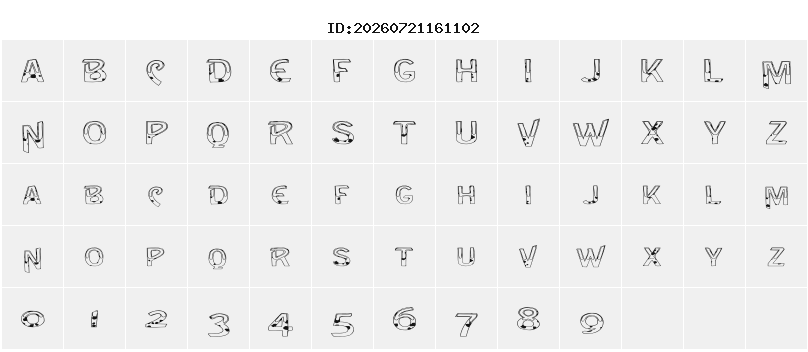
• Font Name: FZ UNIQUE 4 SPOTTED EX
• Full Font Name: FZ UNIQUE 4 SPOTTED EX
About FZ UNIQUE 4 SPOTTED EX.ttf
FZ UNIQUE 4 SPOTTED EX.ttf is a modern, elegant sans-serif font designed for ultimate readability and visual harmony. Perfect for branding, headlines, web design, and print materials.